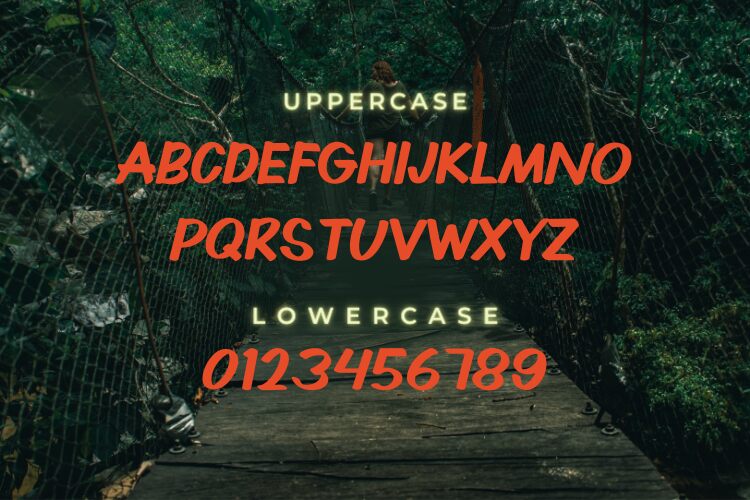
BLOODIES
Bloodies by Folv is a captivating display font that effortlessly blends the whimsical charm of a comic script with the bold confidence of a robust typeface. The irregularity of its letterforms and the playful flourishes throughout create a delightfully dynamic aesthetic, exuding a sense of spontaneity and energy. This font's unique character invites viewers to embrace the vibrant, expressive nature of its design, making it an alluring choice for projects seeking to capture a playful, youthful spirit.
Bloodies by Folv possesses a remarkable versatility, lending itself seamlessly to a diverse range of design applications. Its bold, attention-grabbing presence makes it an excellent selection for captivating headlines, eye-catching logos, and dynamic branding elements. The font's playful essence also allows it to thrive in the realm of packaging design, children's publications, and other creative endeavors where a touch of whimsy and character is desired.